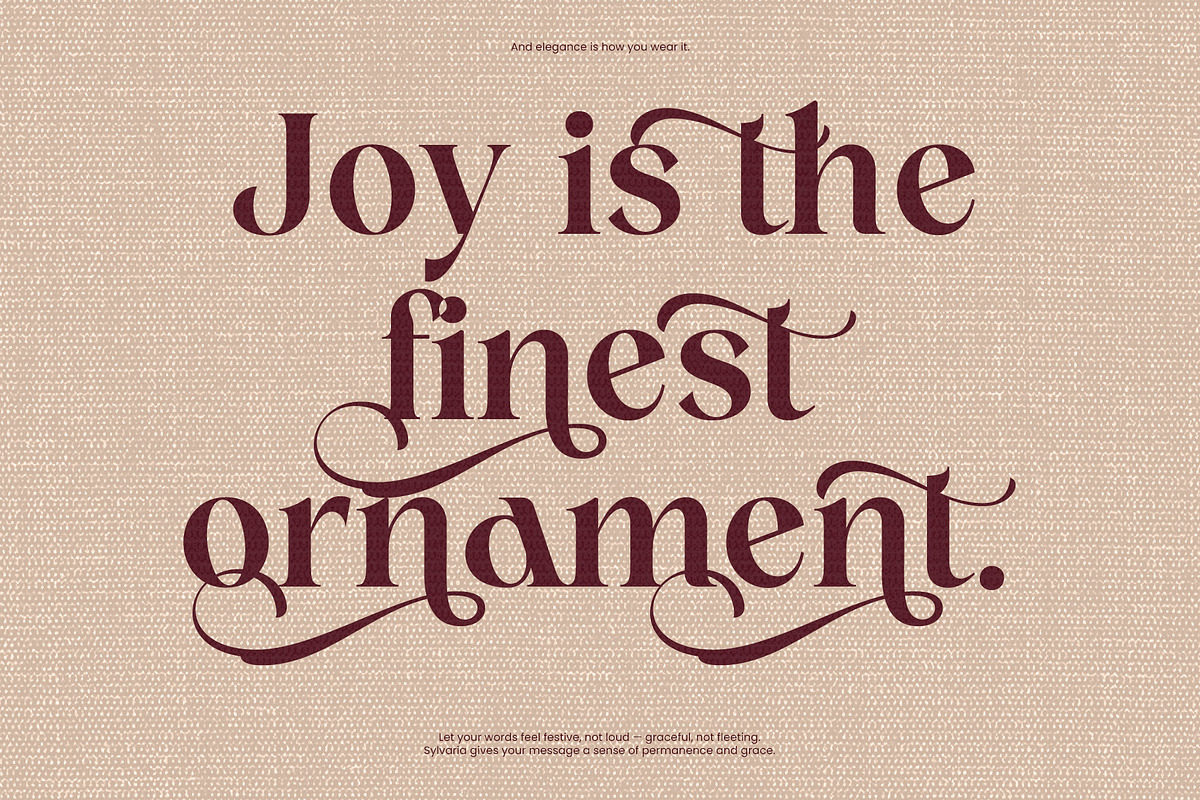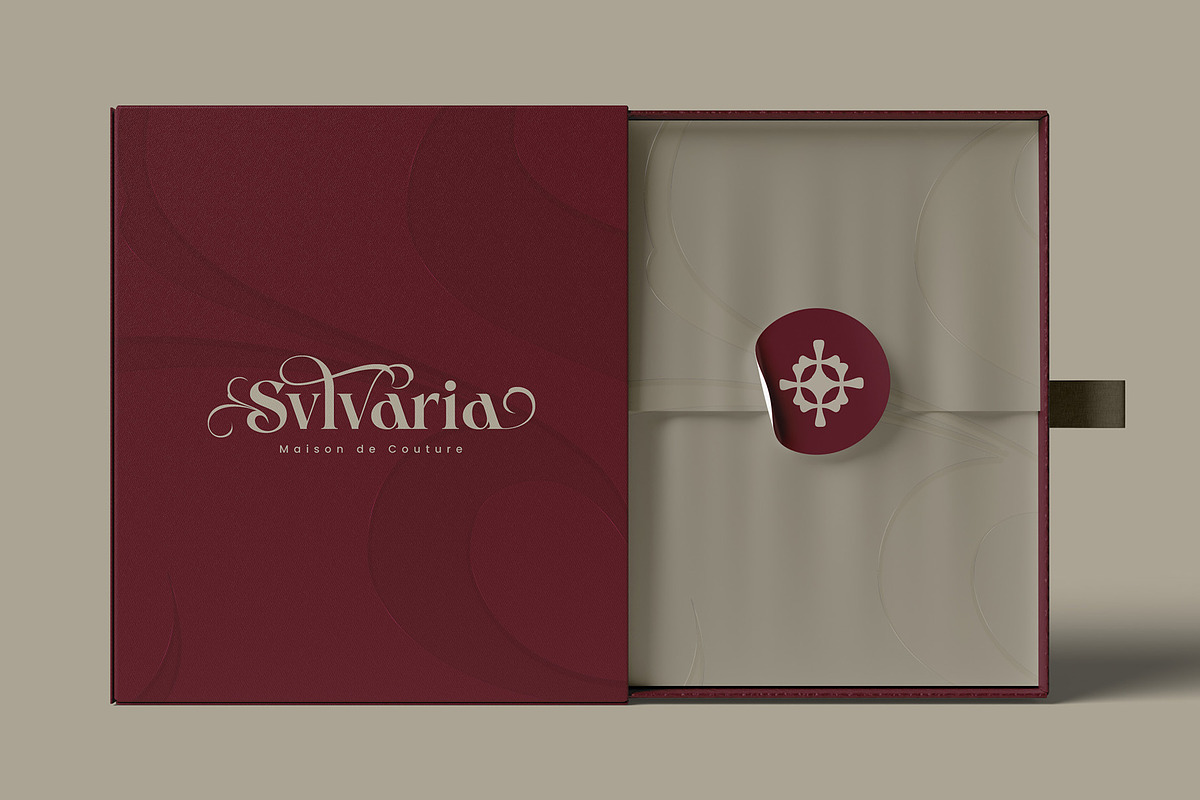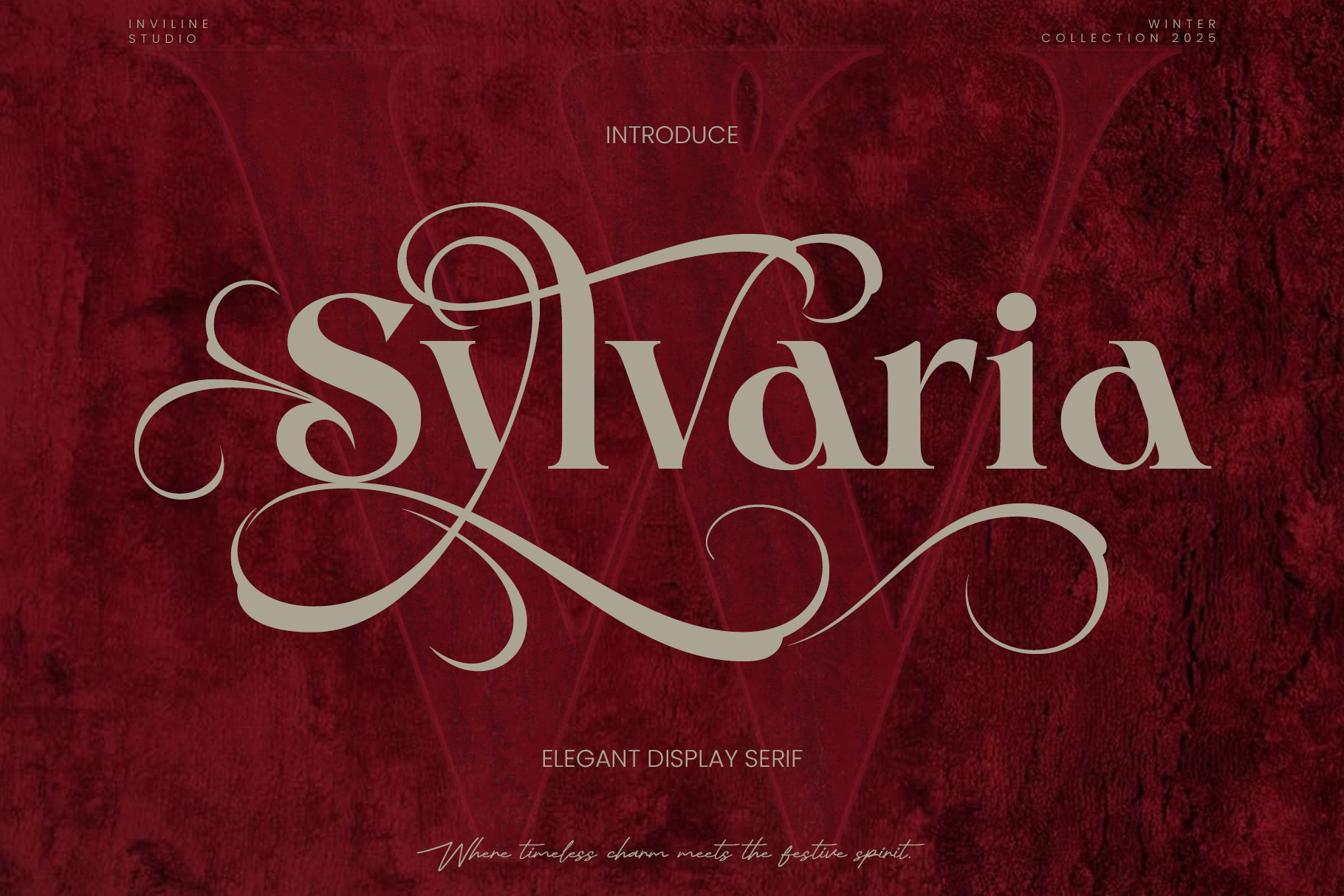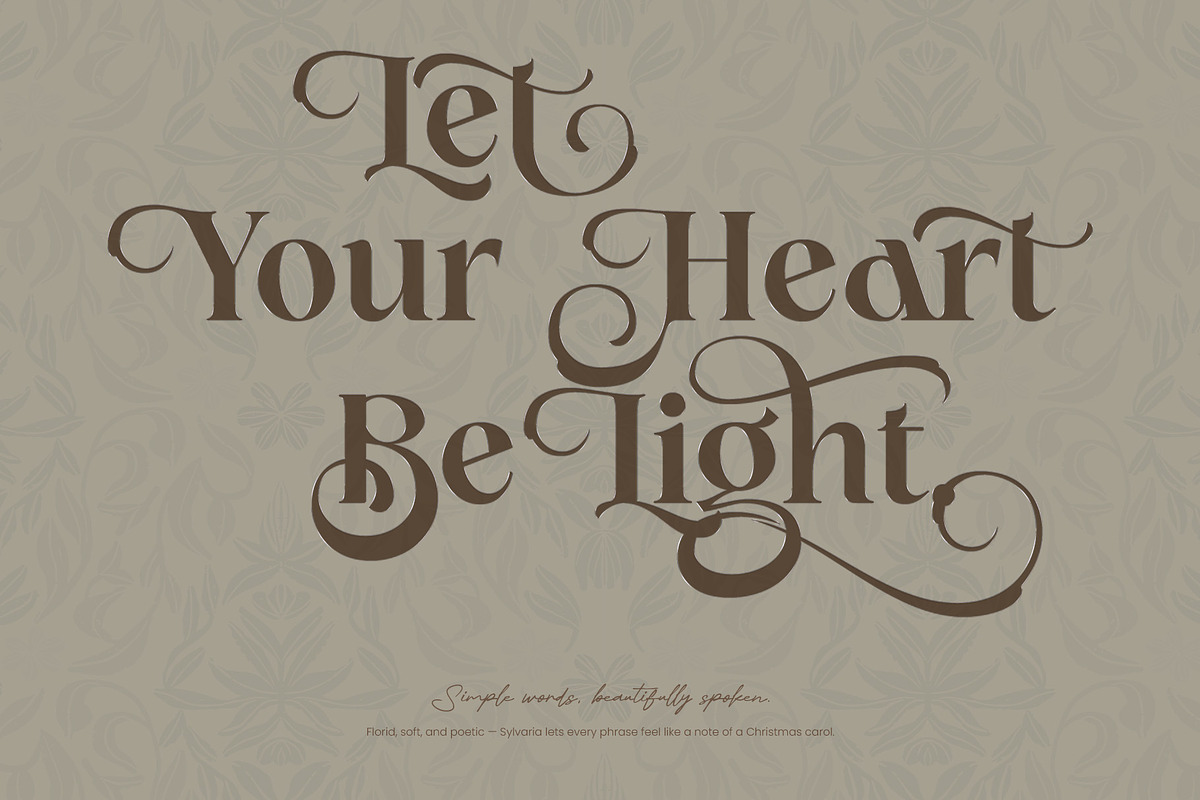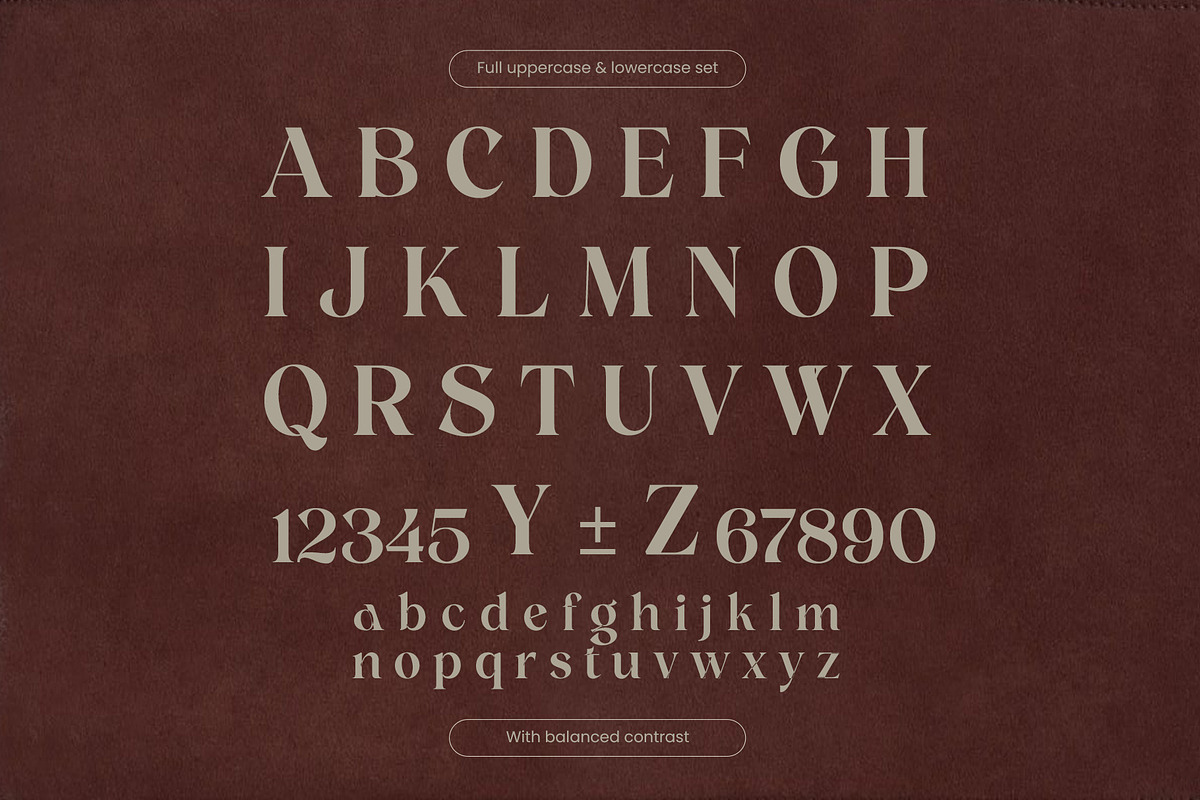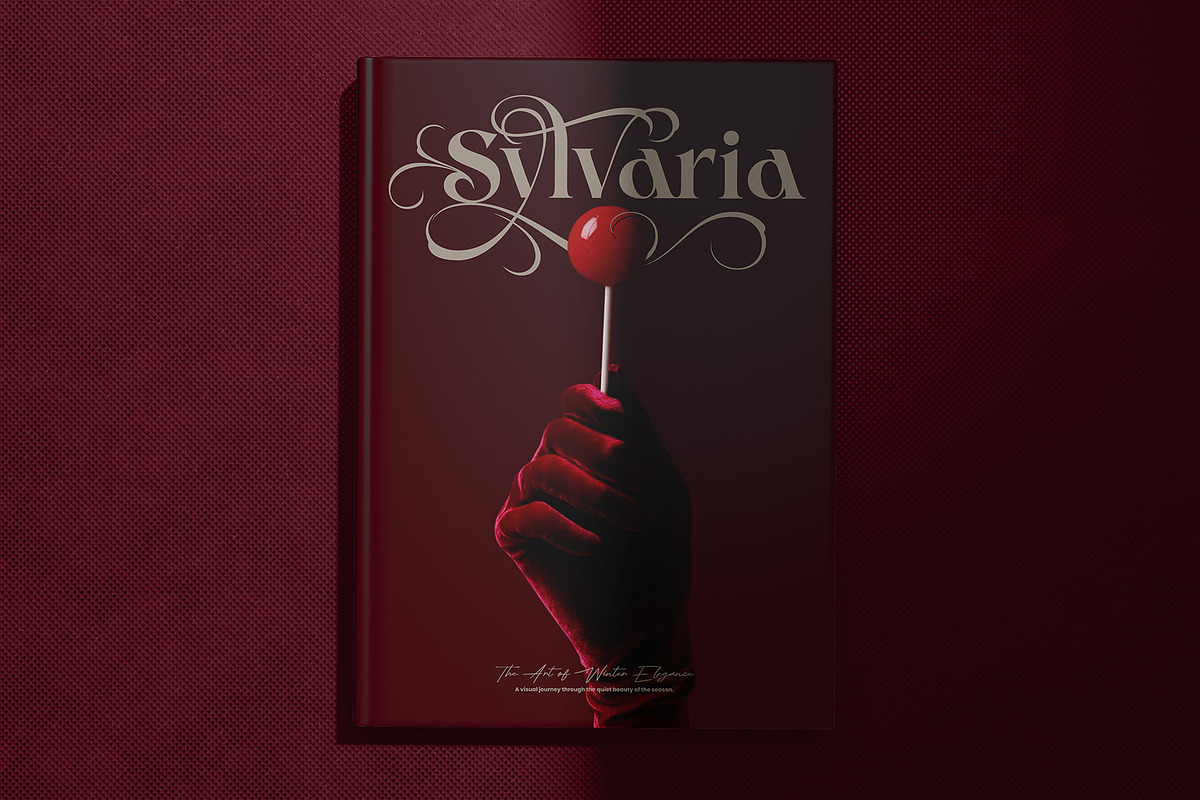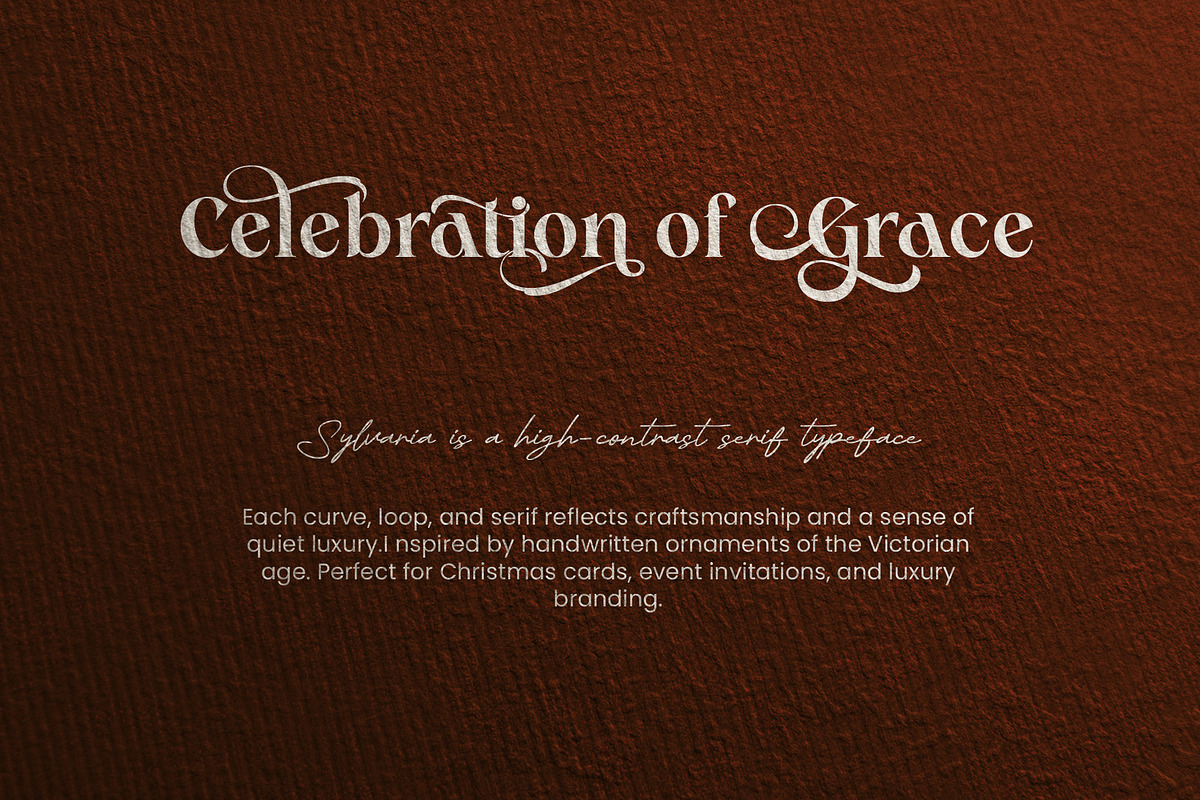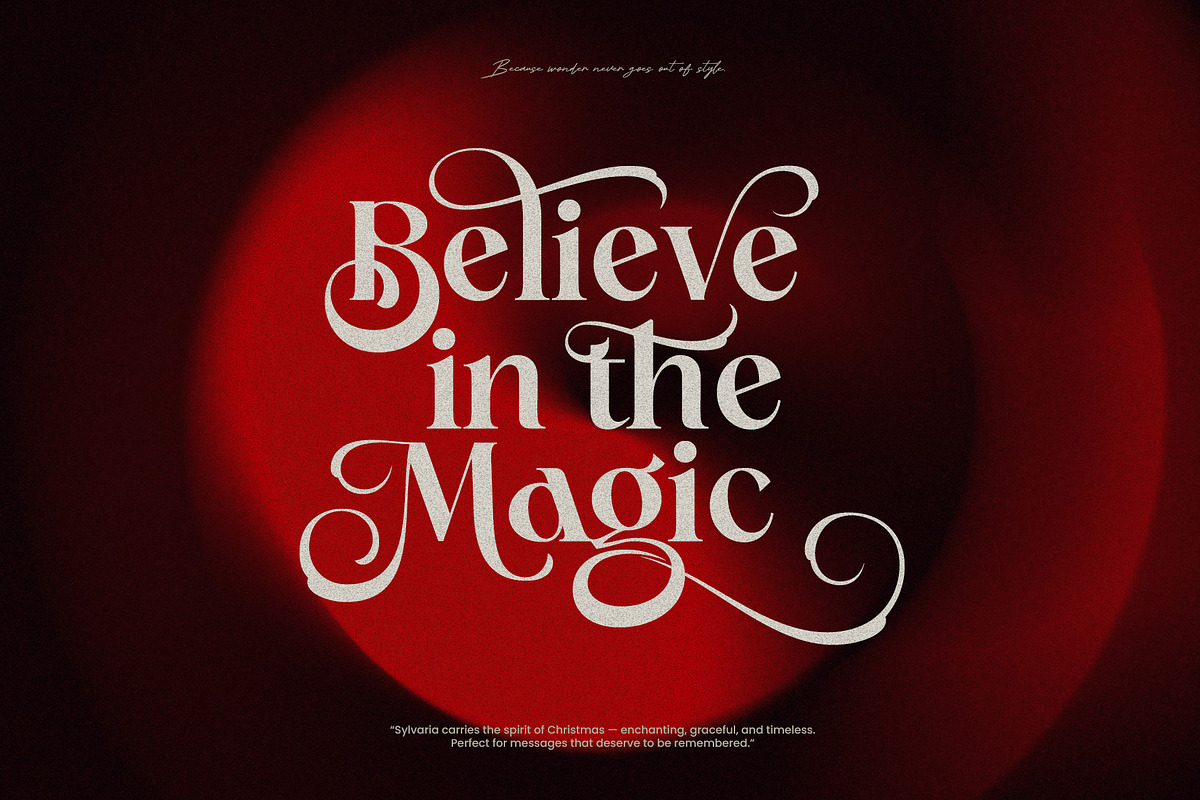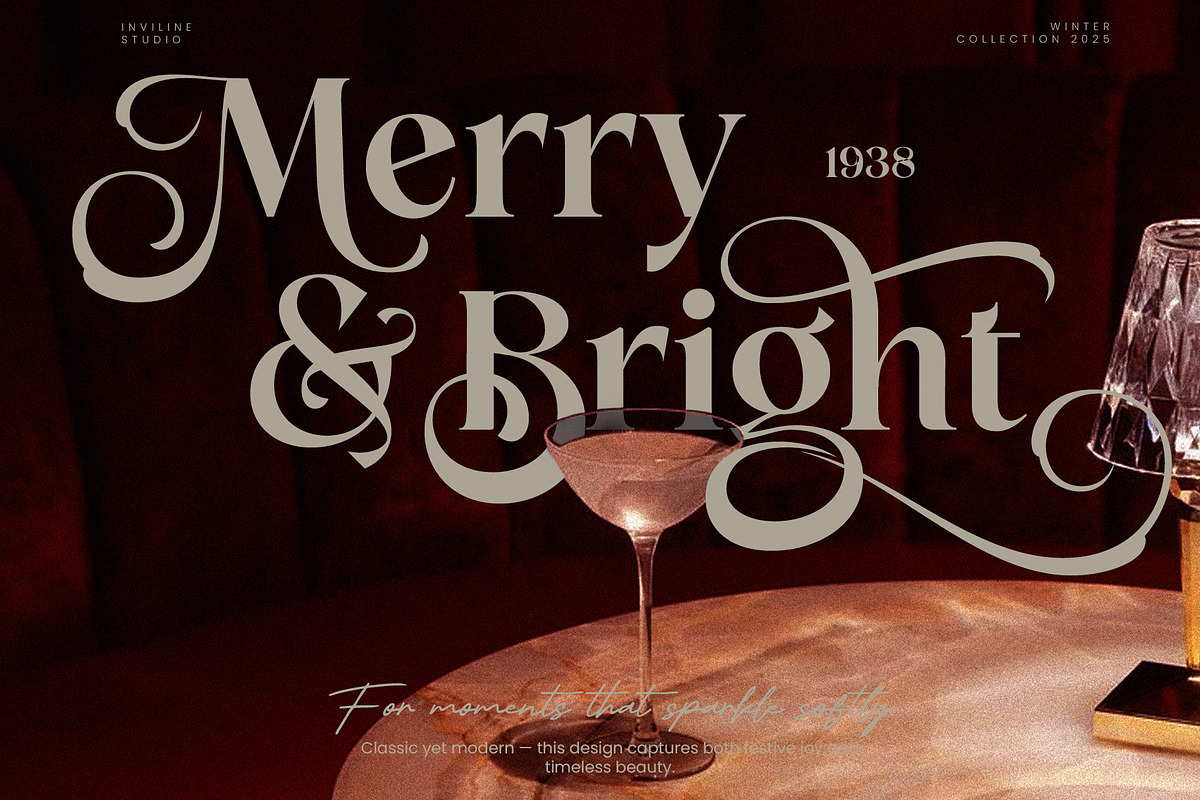
Sylvaria - Elegant Christmas Font
Sylvaria is an elegant display serif typeface inspired by timeless celebrations, luxury stationery, festive editorial design, and classical ornamental typography.
Its refined serif structure is enhanced with sweeping flourishes, decorative capitals, and graceful curves that create a sophisticated yet expressive personality. Sylvaria is designed for projects that need a sense of romance, ceremony, warmth, and premium craftsmanship.
Overview
Sylvaria combines classic serif proportions with dramatic calligraphic swashes. The standard characters provide a polished and readable appearance, while the decorative letterforms add movement and personality to names, headlines, monograms, and short statements.
The typeface works beautifully in seasonal campaigns, wedding stationery, luxury packaging, beauty branding, greeting cards, and elegant editorial layouts. Its ornamental details are especially effective at medium and large sizes, where the flourishes can become a central part of the composition.
Use Sylvaria with rich colors, soft neutrals, velvet textures, metallic accents, floral imagery, or minimal layouts to create a timeless and sophisticated visual identity.
Sylvaria elegant display serif font
Uppercase characters A–Z
Lowercase characters a–z
Numerals 0–9
Standard symbols and punctuation
Decorative stylistic alternates
Beginning and ending swashes
Western European accented characters
Elegant decorative serif design
Classic proportions with a modern luxury character
Sweeping calligraphic flourishes
Decorative uppercase letterforms
Graceful curves and refined contrast
Complete numerals
Standard symbols and punctuation
Strong visual impact at medium and large sizes
Ideal for names, titles, monograms, and short phrases
Works beautifully with festive and romantic compositions
Easy to pair with minimalist sans serif or refined serif fonts
Suitable for seasonal, wedding, beauty, and luxury branding
Stylistic alternates for select characters visible in the preview: S, y, L, and decorative initial or terminal forms
18 ligature pairs: st, br, cr, ct, fr, ist, op, or, ox, th, Tr, tt, wn, ff, fi, fl, ffi, ft — only advertise these combinations when they are included and tested in the final font package
Multilingual support: Western European characters with diacritics such as À, Á, Â, Ç, É, Ñ, Ø, Ü, and more
Ideal For / Use Cases
Christmas and holiday branding
Seasonal greeting cards
Wedding invitations
Save-the-date cards
Engagement announcements
Luxury logo design
Beauty and cosmetic branding
Perfume packaging
Boutique identities
Premium product labels
Gift packaging
Festive event invitations
Editorial headlines
Magazine covers
Book covers
Romantic quote designs
Monogram designs
Personal stationery
Thank-you cards
Photography overlays
Restaurant menus
Hotel and event branding
Certificates
Elegant promotional campaigns